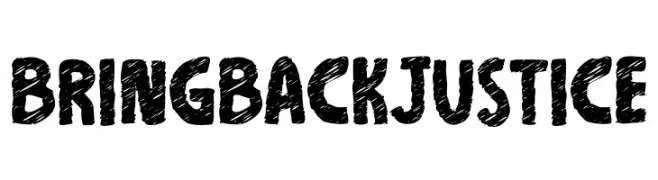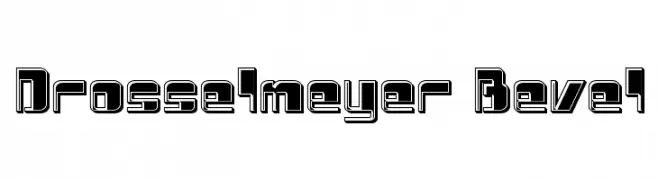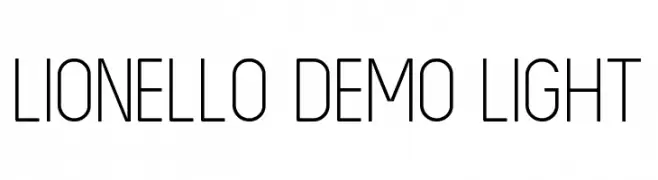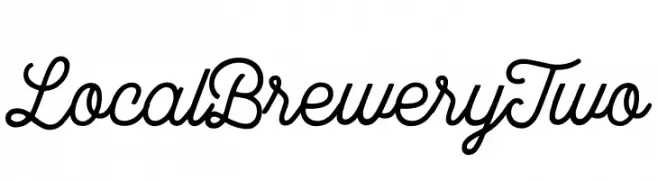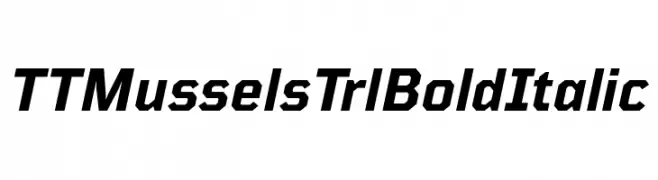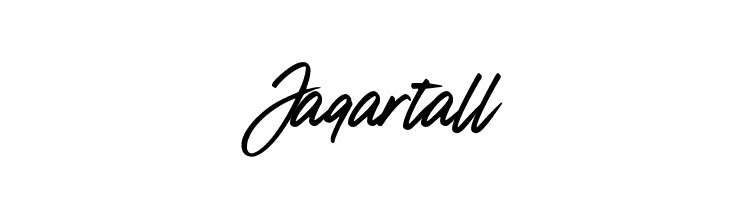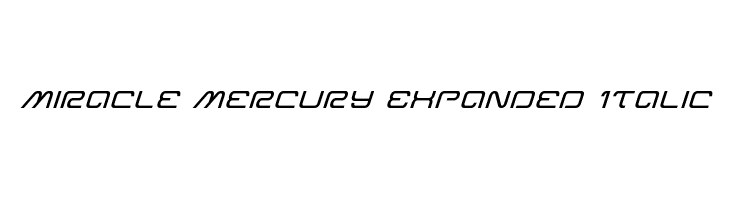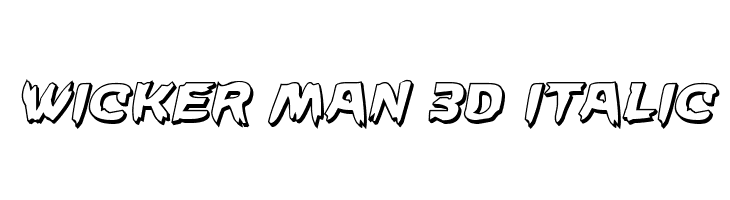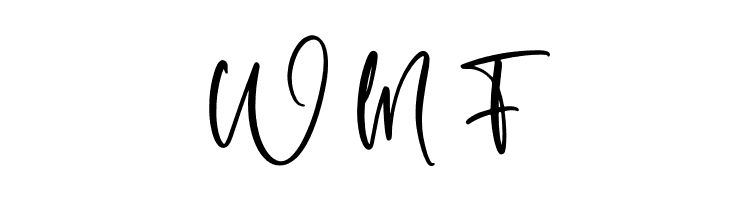
A flowing, cursive font with elegant loops and artistic flourishes.
A decorative blackletter font with ornate, angular strokes.
A bold, expressive script font with fluid, interconnected strokes.
An edgy, barbed wire-themed decorative font with bold, jagged characters.
A bold, textured, hand-drawn style font ideal for creative projects.
A bold, geometric font with a beveled, three-dimensional effect.
A modern, elegant script font with flowing, cursive letterforms.
A modern, geometric sans-serif font with a sleek and minimalistic design.
A charming and elegant script font with fluid, connected strokes and a modern flair.
A bold, italicized font with geometric shapes and angular edges.